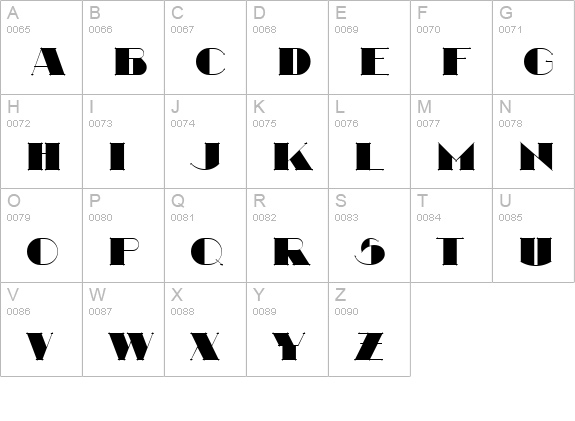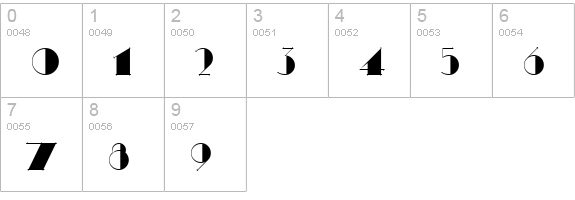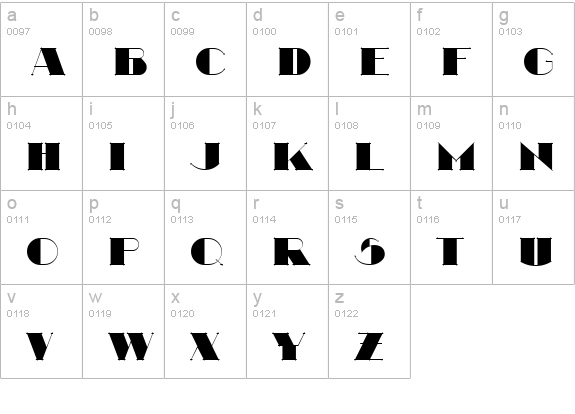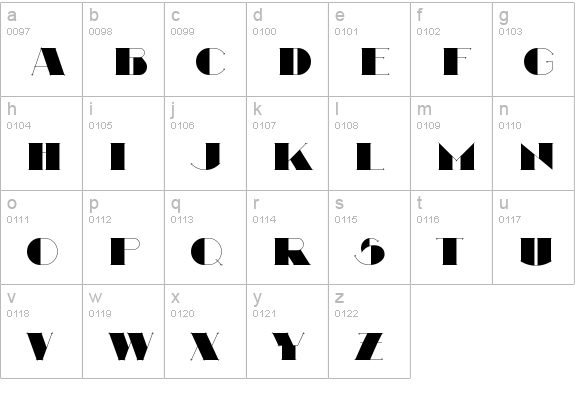
Nathan Regular is the standard, neutral variant in the Nathan typeface family \xE2\x80\x94 well suited to general body text, paragraphs, and standard typographic work.
Nathan Regular font is a versatile and modern typeface that adds a touch of sophistication to any design project. With its clean lines and elegant curves, this font is perfect for both headers and body text. The Nathan Regular font is available for free download at FontsMarket.com, making it easily accessible for all designers looking to elevate their work with a stylish and contemporary typeface. Whether you're working on a branding project, website design, or print materials, Nathan Regular font is a must-have in your font collection. Download it today and start creating stunning designs with this beautiful and versatile font.